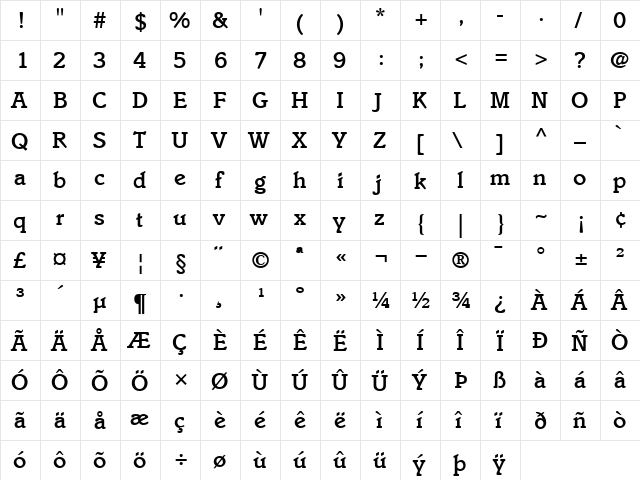
Italia-Medium Medium
Design Context for Italia-Medium Typeface
Italia-Medium offers clean, dependable letterforms without strong stylistic allegiance, making it a practical choice for designers who need flexibility.